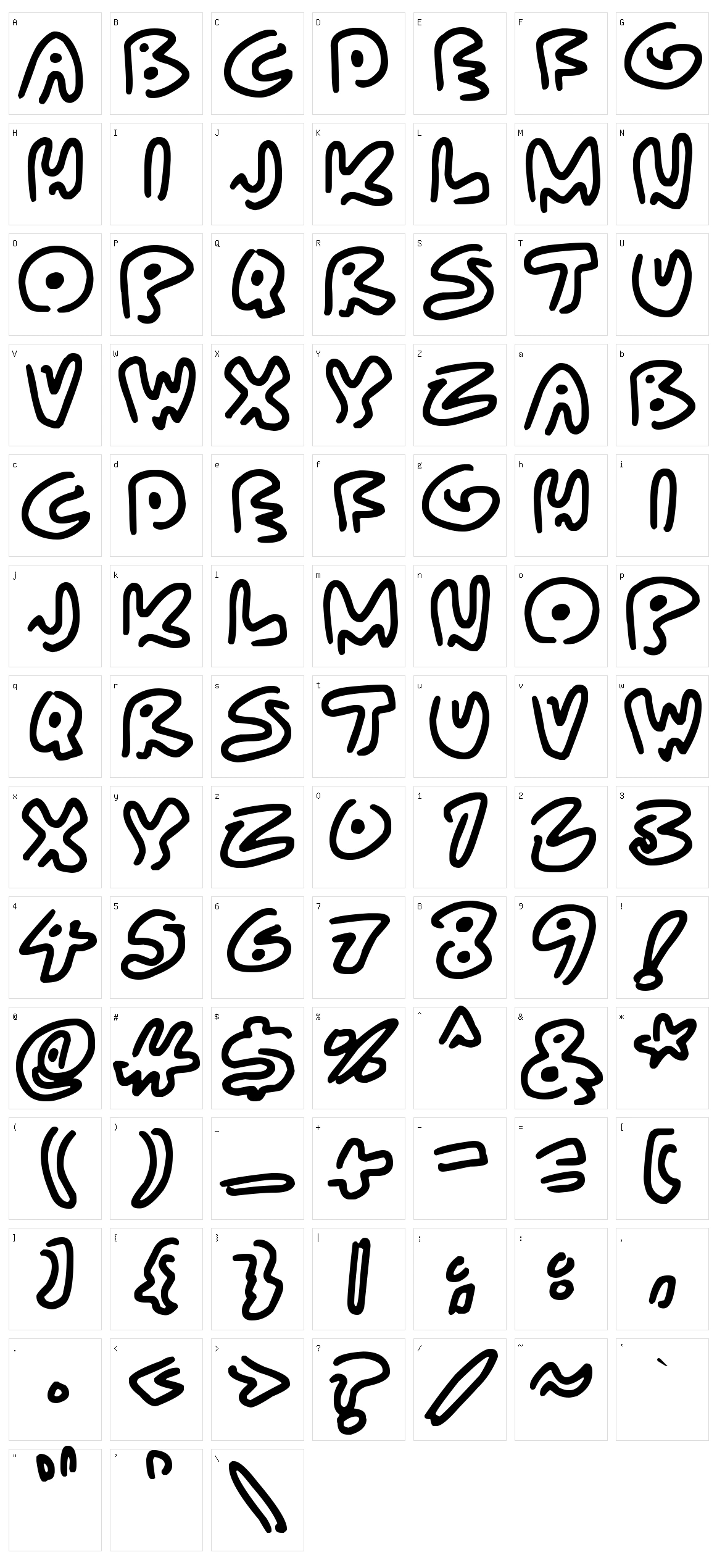
The free font Almost Outlines is carefully designed by Hawtpixel, showcasing a thoughtful balance of creativity and usability and falls under the Cartoon font style. When you download the ZIP file, it contains only 103.84 KB of font files, making it lightweight and quick to download. Please review the license details below to understand permitted usage and distribution rights. If license information is not available, we recommend using this font for personal projects only or contacting the author directly for commercial usage permissions.